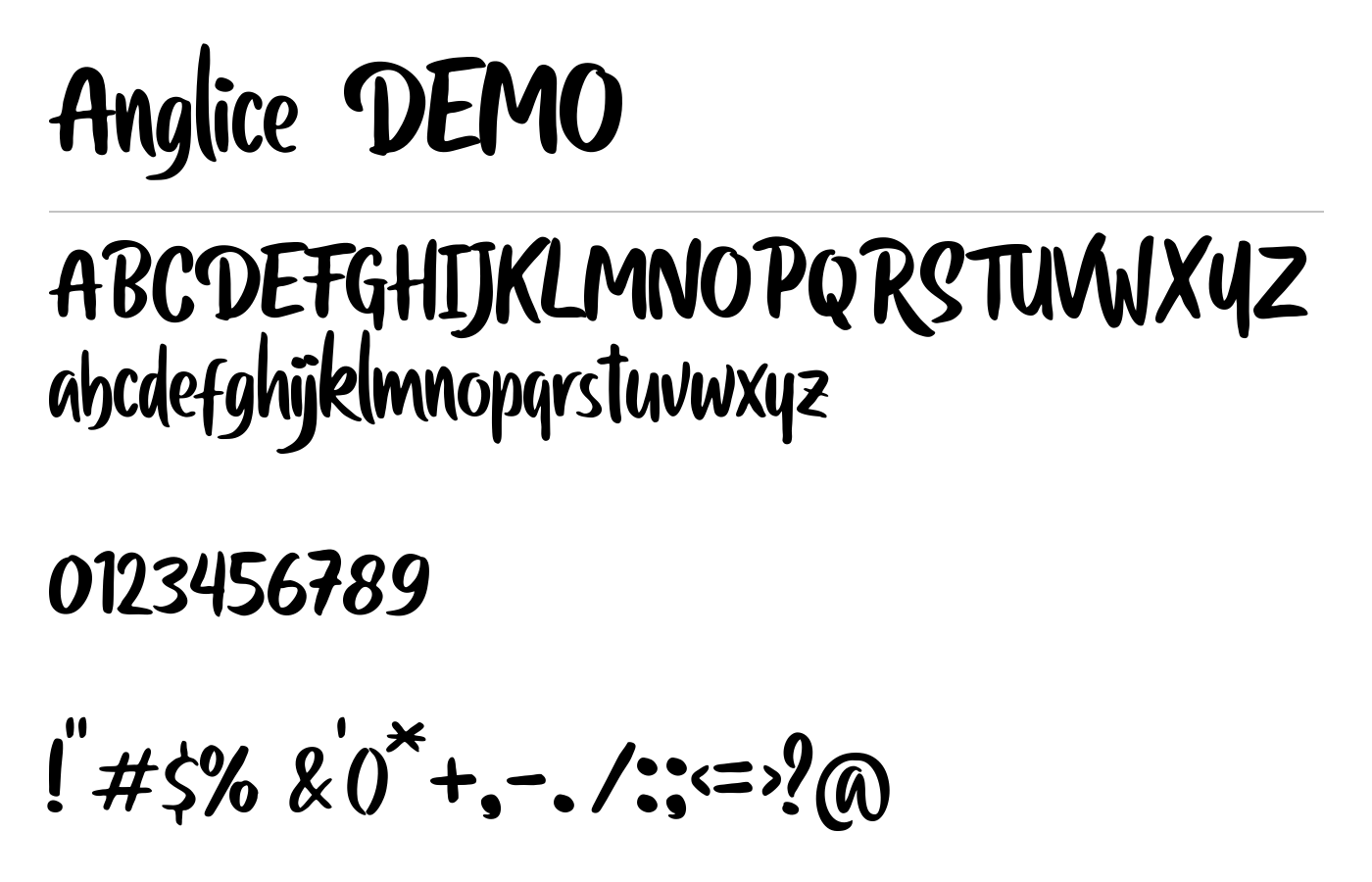
Anglice DEMO is a playful, casual handwritten font with a friendly and approachable feel. Its moderate weight and tall, slightly condensed letterforms feature smooth, rounded strokes and unique character shapes that add personality without sacrificing readability. This font works wonderfully for informal branding, creative projects, social media graphics, and any design needing a warm, personal touch.
Anglice DEMO Font
About Anglice DEMO Font
| Font family | Anglice DEMO Font |